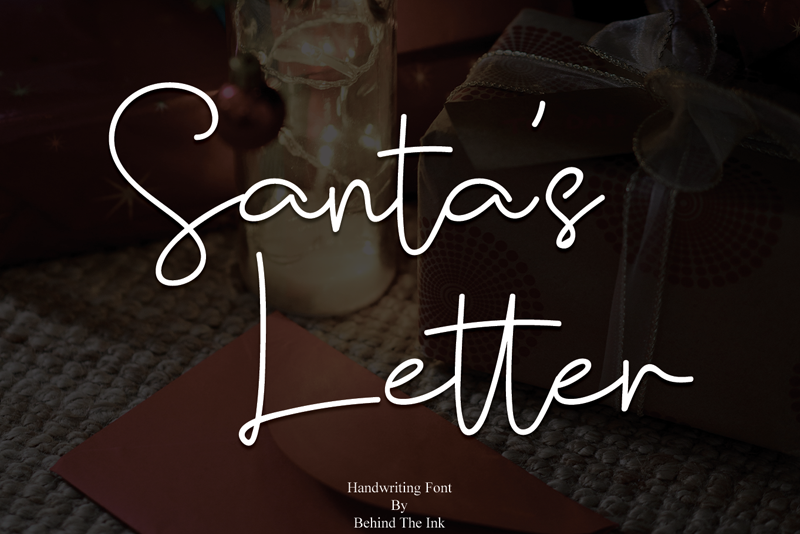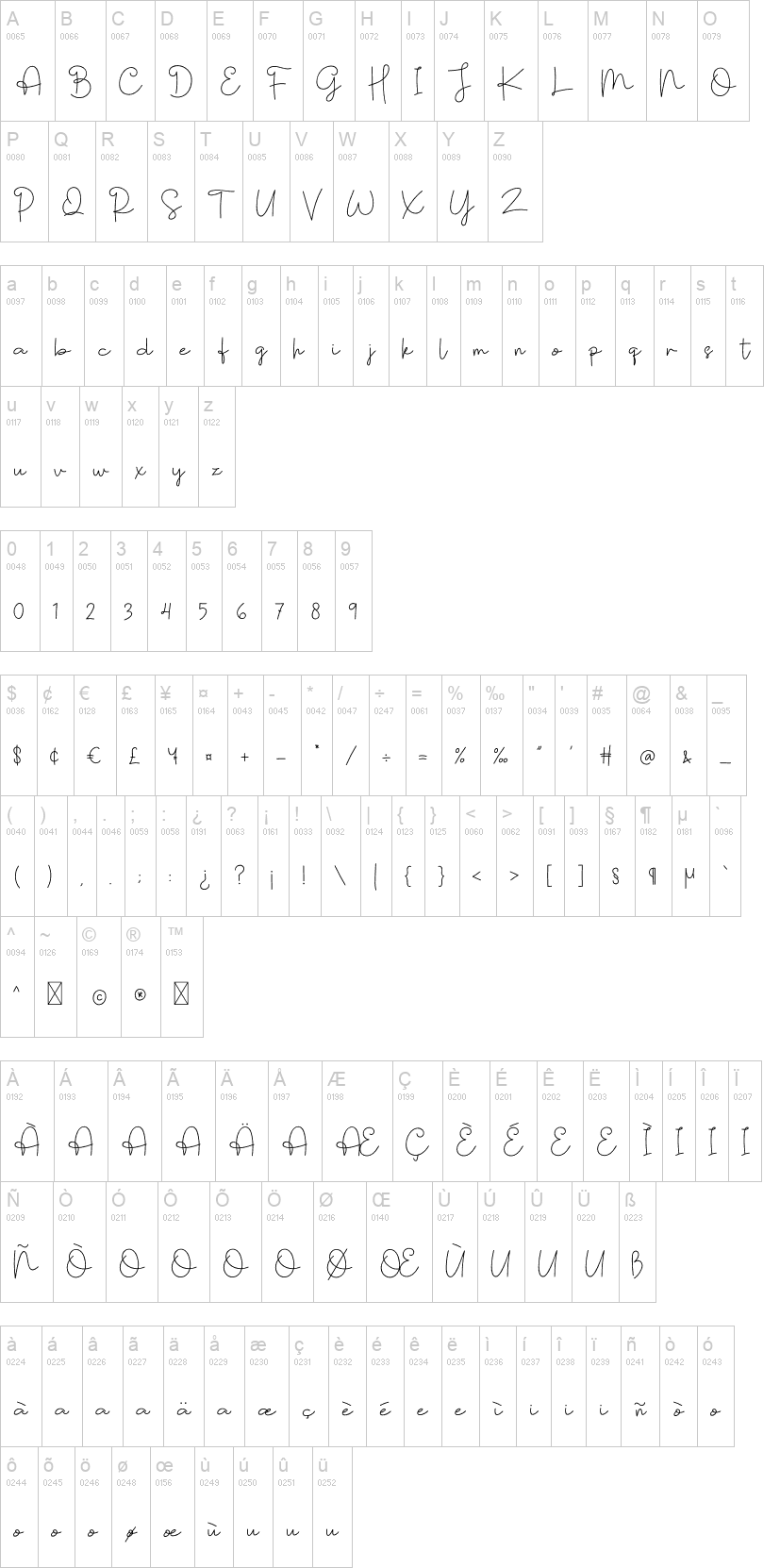
Note of the authorSantas Letter is an exquisite handwritten font, masterfully designed to become a true favorite. It maintains its classy calligraphic influences while feeling contemporary and fresh.